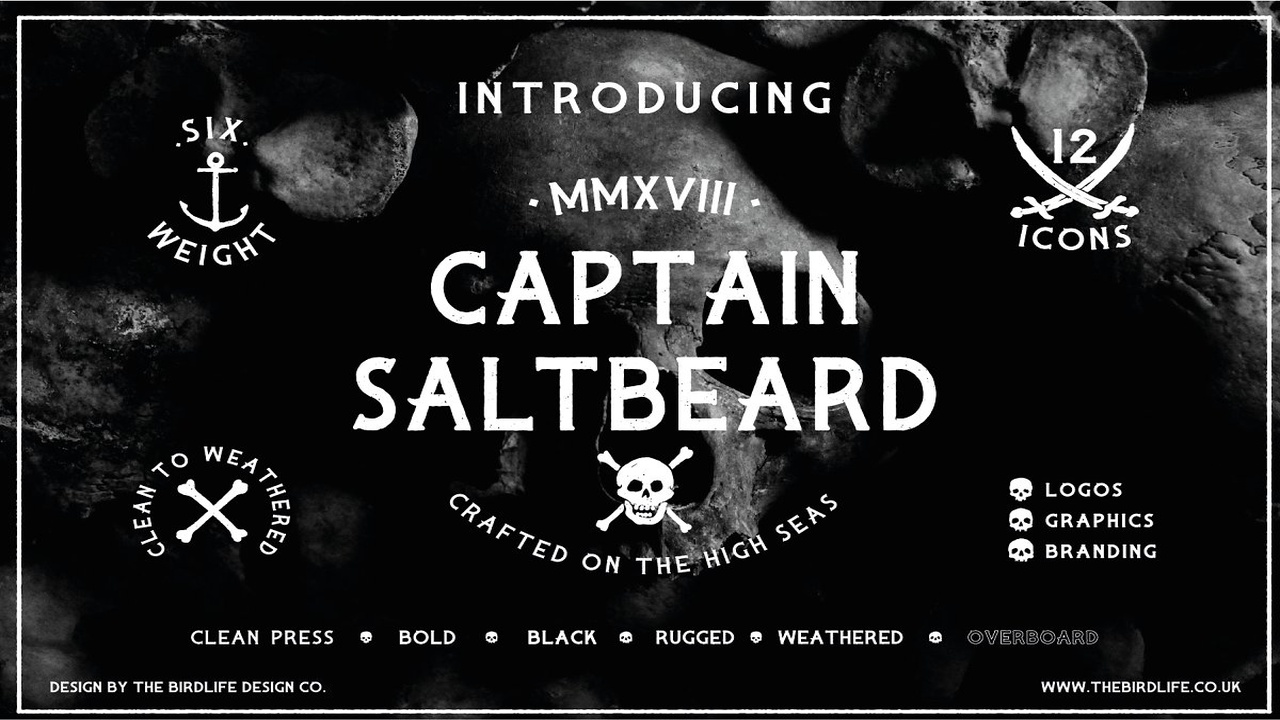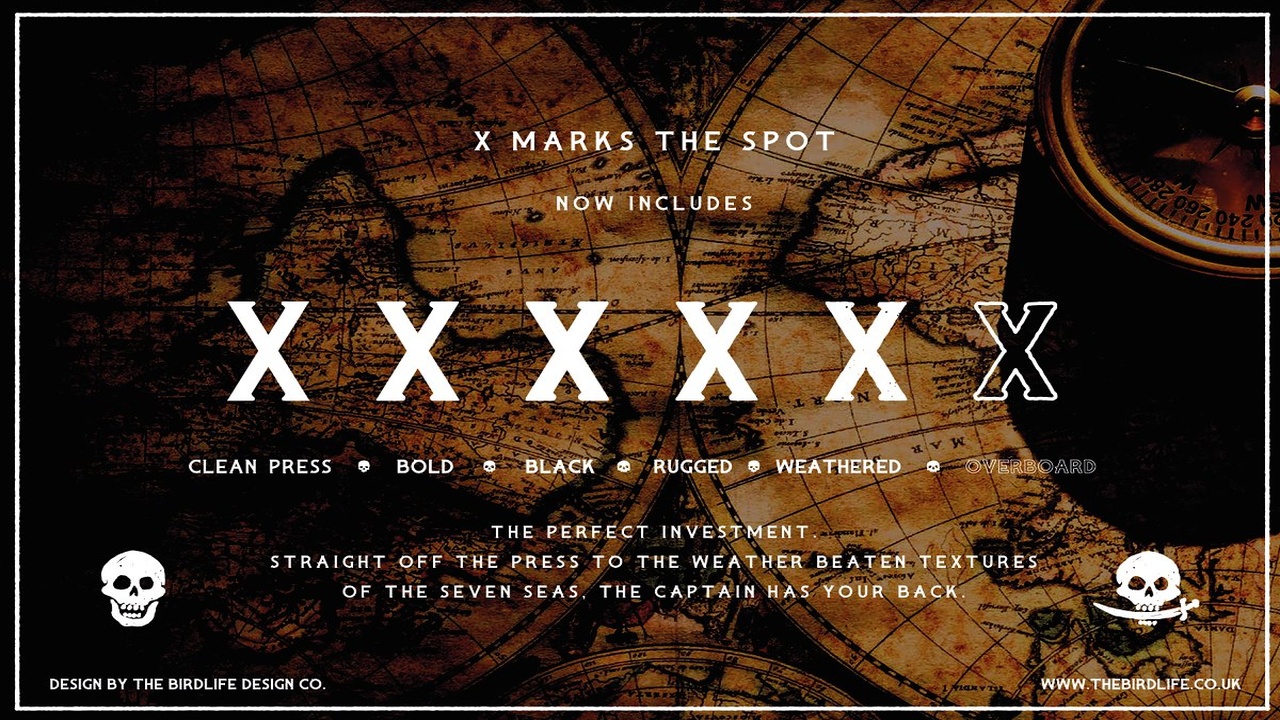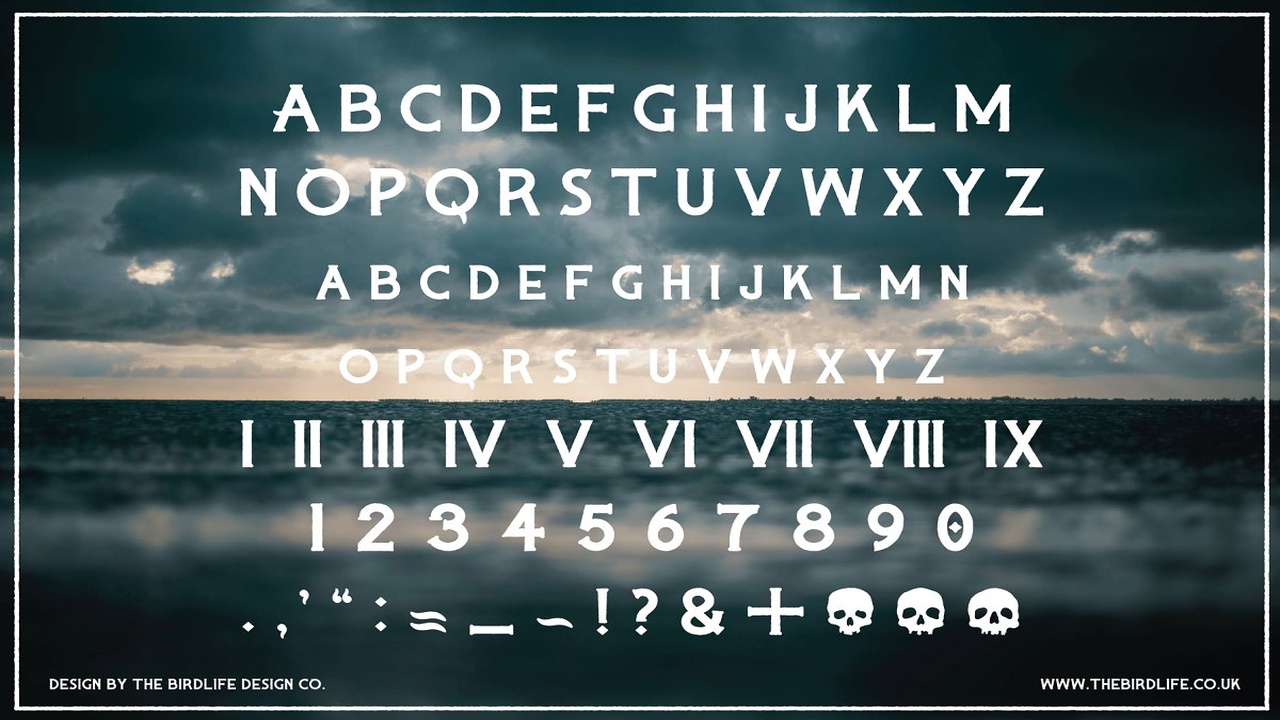
About the CAPTAIN SALTBEARD Font
Ahoy! Introducing the new Captain Saltbeard serif typeface – crafted on the high seas!This original pirate gem boasts a 6 weight family font, straight from the press to the weather beaten texture of the seven seas, The captain has your back, It’s timeless nature makes this sea dog ideal for logo, graphic and branding works, for both vintage and contemporary styles
Making this scallywag the perfect investment with high quality lasting value! No Captain would be good without treasure so that’s why Captain Saltbeardoffers a free Booty Package! 12 free pirate icons to bring your work back from the dead! GRARRR, What’s included?6 weight family fontCLEAN PRESSBOLD PRESSBLACK PRESSRUGGEDWEATHEREDOVERBOARDFREE BOOTY! 12 FREE PIRATE ICONS FeaturesAll caps upper and lower case-Basic punctation Roman numeralsBasic numerals NOTESSimply hold the option (alt) key to use regular 0-9Booty icons – vector AVAILABLE AS